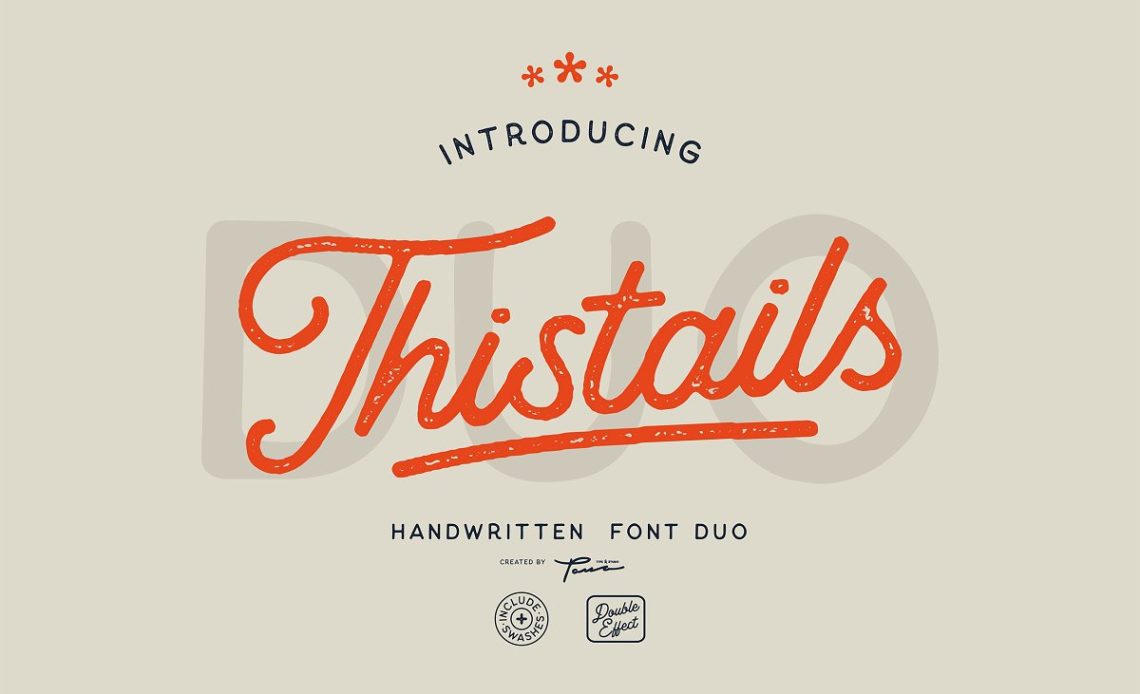
Introducing Thistails Font Duo - the perfect combination of modern and vintage design styles that will elevate your creative projects to the next level. This stunning font family, created by PanaTS, features both a script and Display Sans serif typeface that is sure to capture the attention of anyone who comes across it.
Thistails Font Duo is suitable for a wide range of design applications, from digital lettering and logos to t-shirts, business cards, and branding materials. The hand-painted and carefully crafted design gives it a unique and personalized touch that is perfect for quotes, nature photography, and much more.
In addition to its captivating design, Thistails Font Duo includes a variety of file formats, including OTF/TTF and Swashes, and features a range of OpenType features such as Ligatures and Stylistic Sets that allow for even more customization options.
With support for a wide range of languages, including Basic Latin, Western European, and even Pan African Latin, Thistails Font Duo is the perfect choice for anyone looking to add a touch of elegance and sophistication to their creative projects.